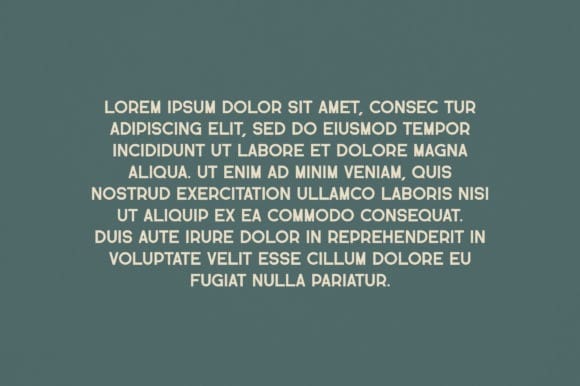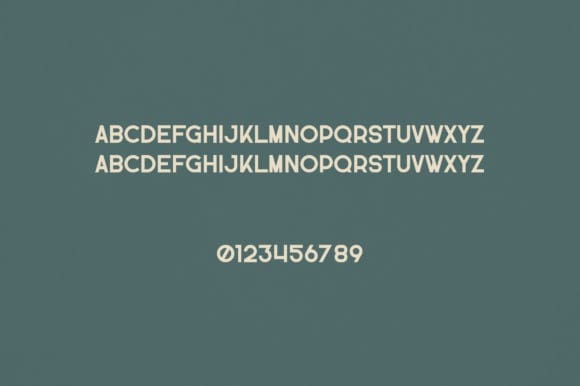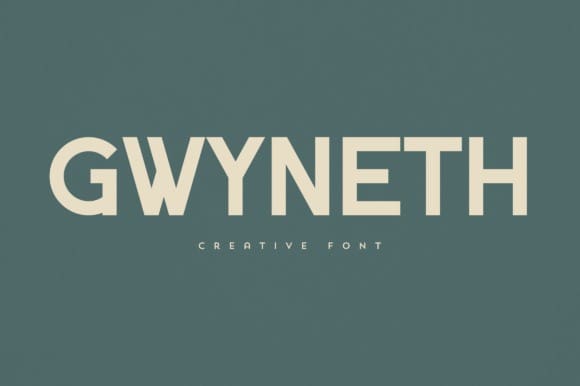
Gwyneth Font
Gwyneth Font is an elegant and versatile sans serif font that will make your typography truly unique! It will enchant every logo, branding, headline, or plain text!